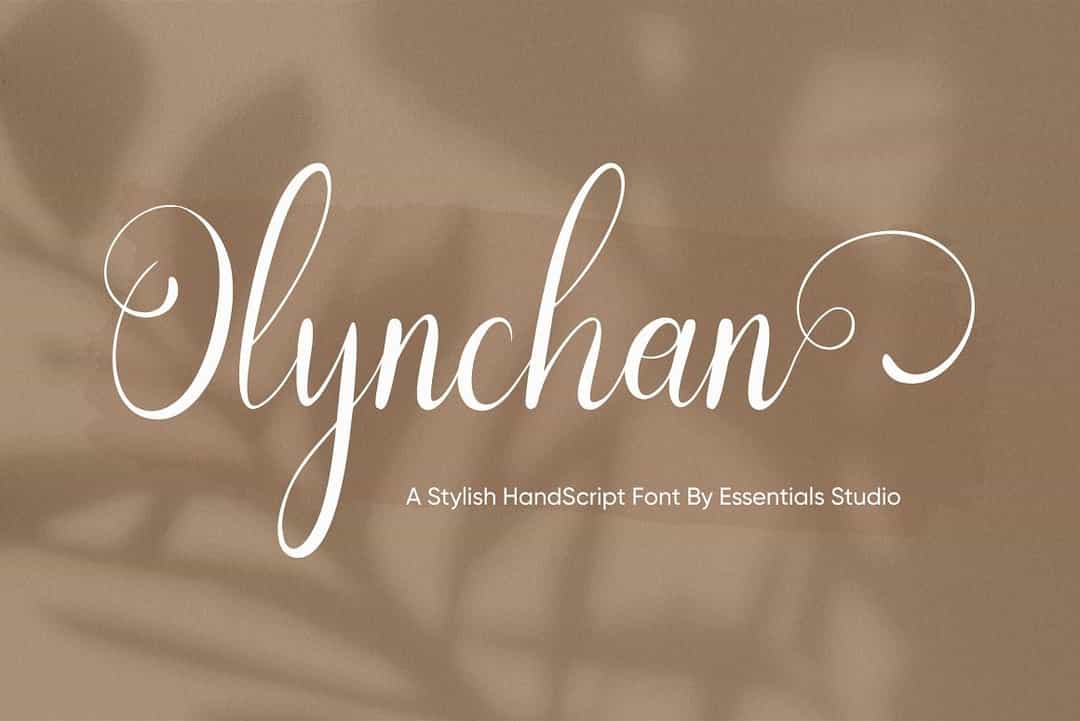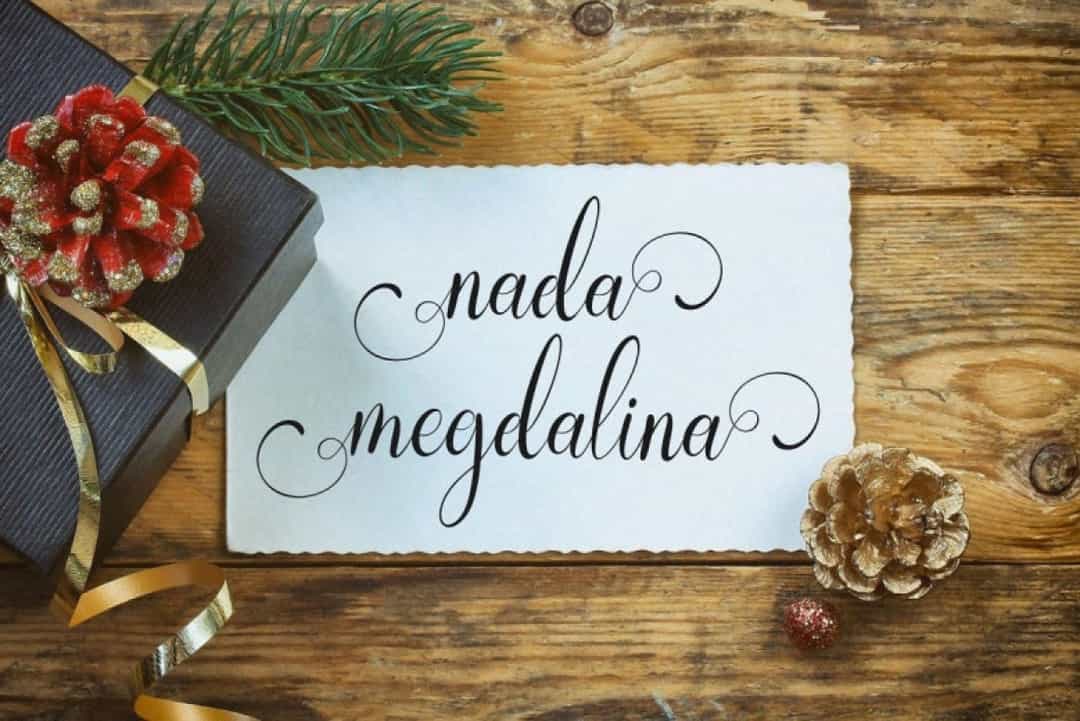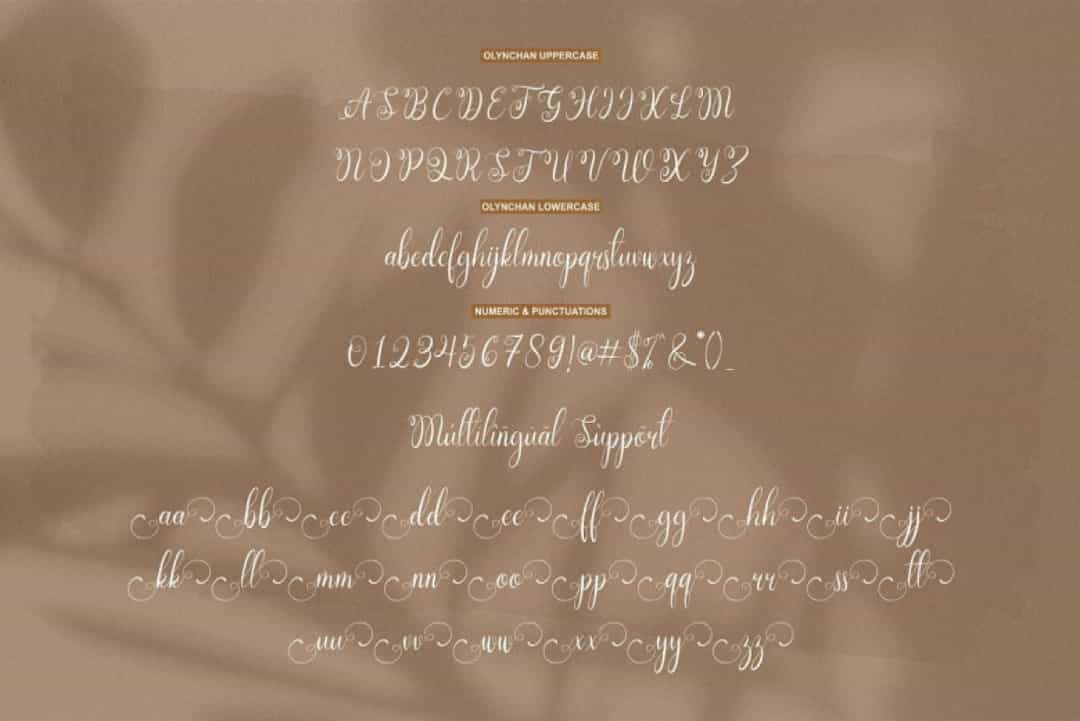
Olynchan is an elegant script calligraphy font featuring Swash and Ligature that comes with over 50 stylish alternatives. Perfect for packaging products, branding projects, magazines weddings social media or simply making words stand out against their backgrounds.